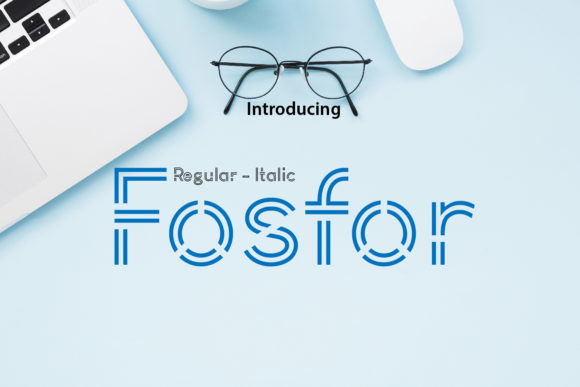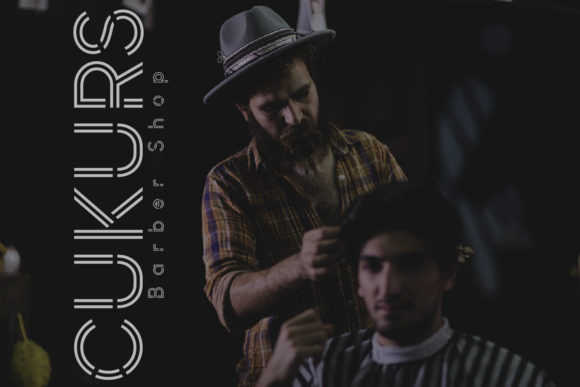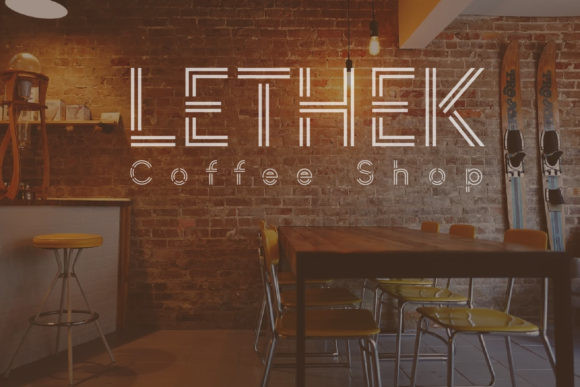
Fosfor Font
Fosfor is a fresh and unique display font. It is suitable for various needs such as covers, magazines, t-shirts, posters, billboards, t-shirts, and so much more!